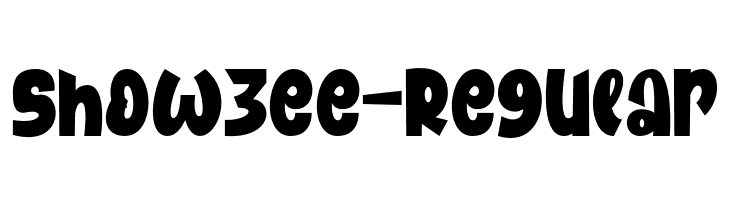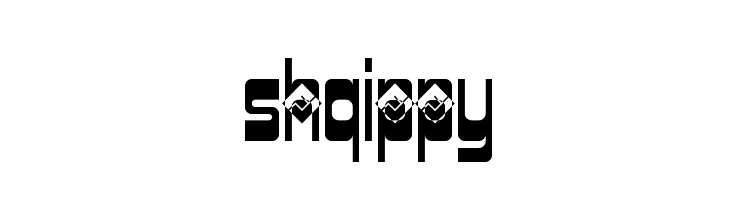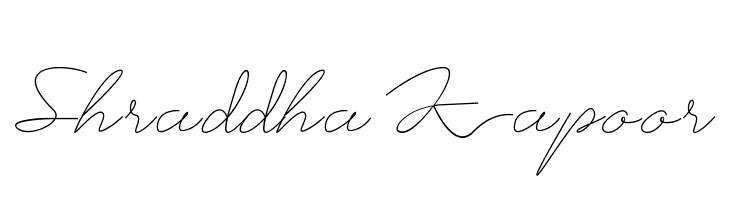
An elegant, ornate script font with flowing, cursive letterforms and intricate flourishes.
A bold, distressed font with a vintage, rugged appearance.
( Fonts by ARRF Designs )
An Art Deco-inspired font with geometric shapes and elegant embellishments.
( Fonts by Khurasan™ )
A bold, playful font with rounded, bubbly characters perfect for fun designs.
( Geronimo Font Studios - Geronimo )
A bold, geometric font with high contrast and angular design.
( Fonts by Lettersweet Studio )
A bold, playful font with rounded, thick characters and a whimsical style.
A bold, geometric font with angular shapes and strong visual contrast.
A bold, geometric font with a modern and futuristic style.
Elegant script font with flowing, connected characters and a harmonious design.
A bold, distressed font with a gritty, weathered texture.